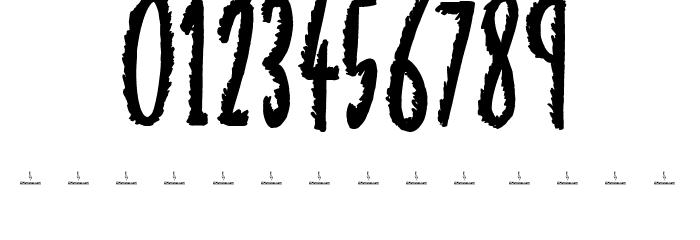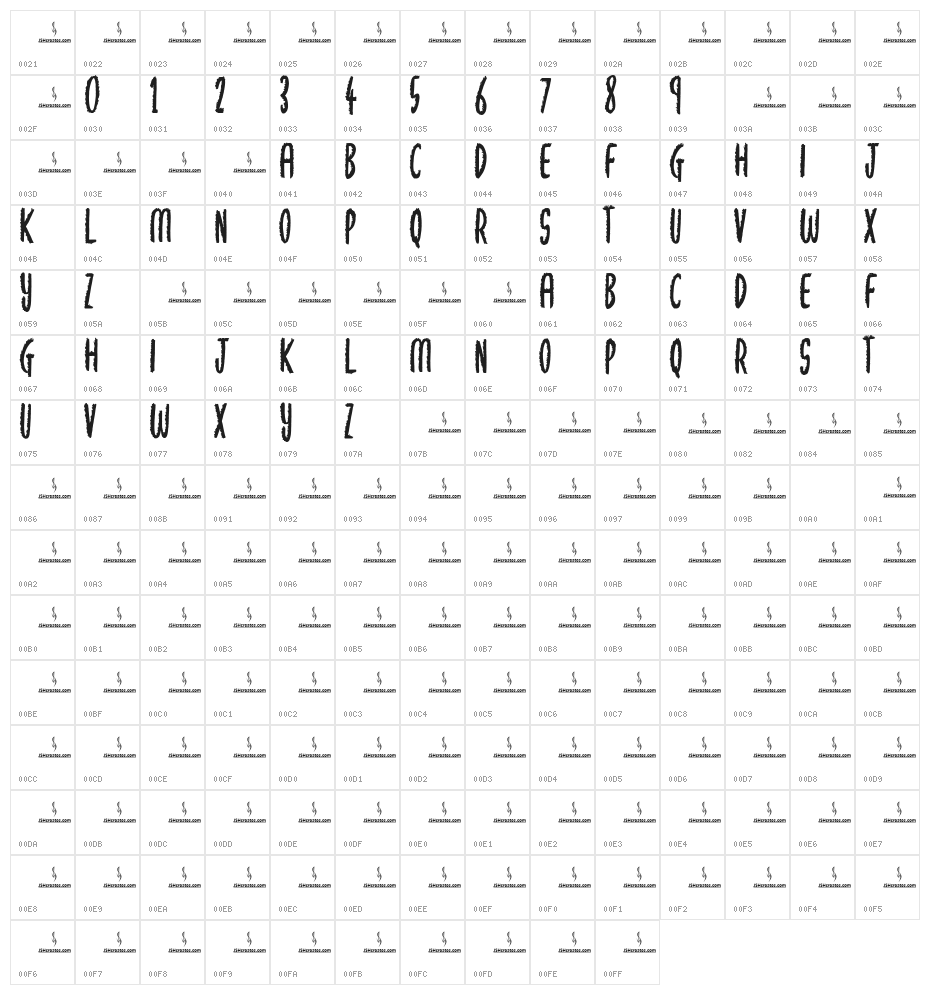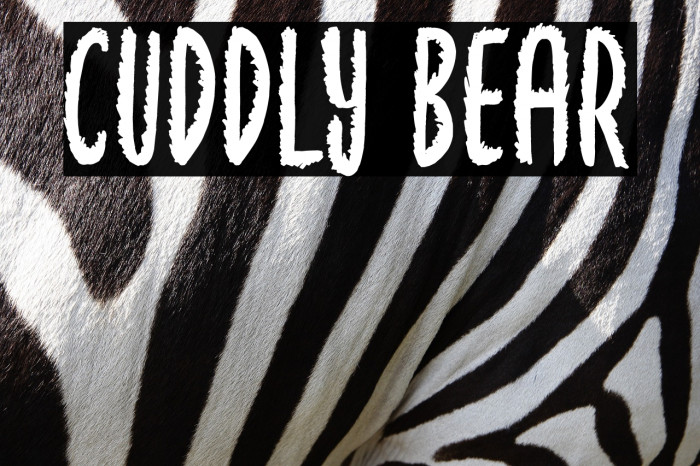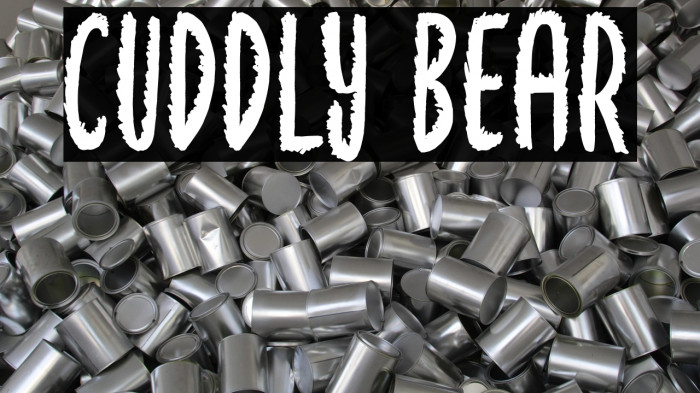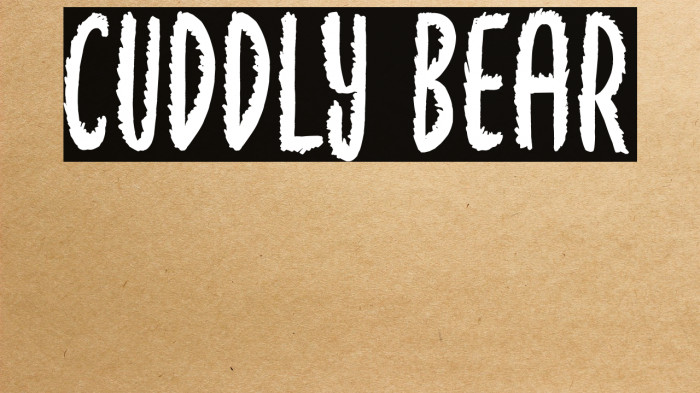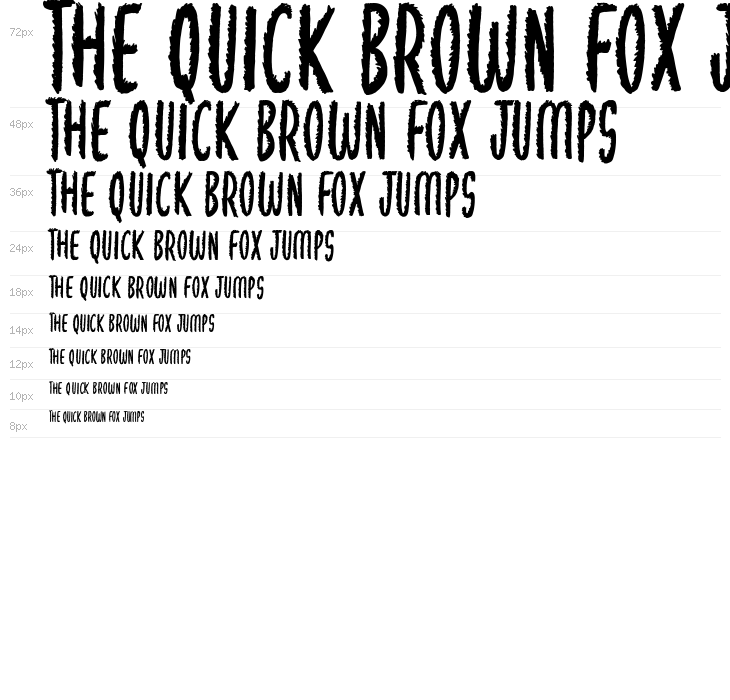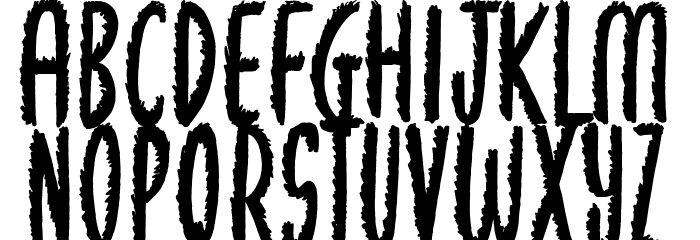
Cuddly Bear Font
Cuddly Bear Description
This font features a playful and bold design with a hand-drawn appearance, characterized by its rough, textured edges and uneven strokes. The letters have a whimsical, almost cartoonish quality, making them stand out with a unique charm. The uppercase and lowercase letters maintain a consistent style, with the uppercase being slightly more elongated. Numbers and special characters follow the same playful aesthetic, ensuring a cohesive look across all characters. The font's irregularities and boldness give it a dynamic and lively feel, perfect for projects that require a touch of creativity and fun.
Overall StylePlayful, Creative